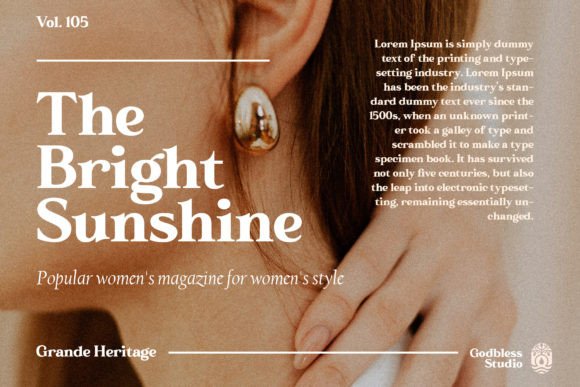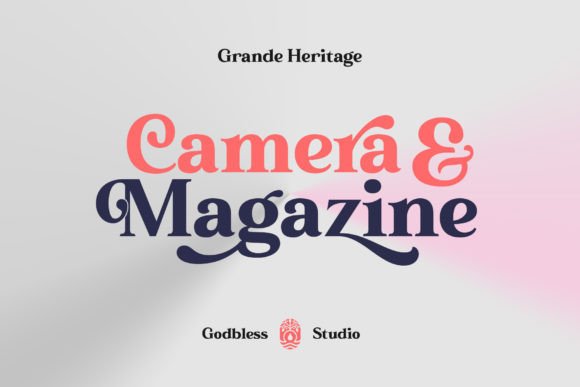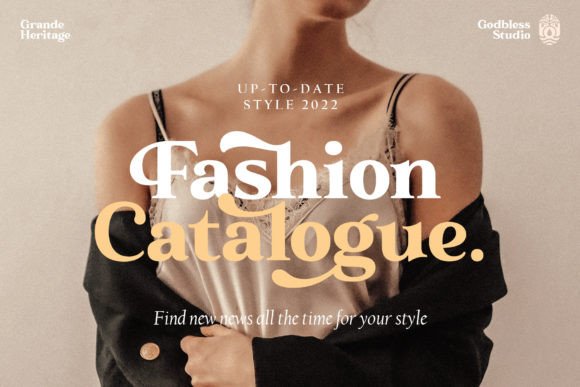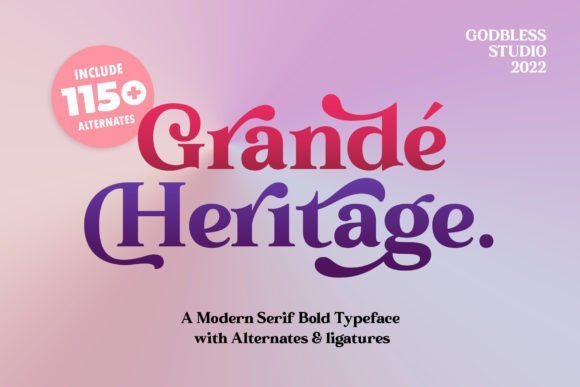
Introduction to Grande Heritage Font
Grande Heritage is a sophisticated, charming serif font with a fashionable touch.
Specially designed for luxury, elegant, feminine projects, this font is perfectly suitable for creating modern, chic designs This font is PUA encoded which means you can access all the glyphs and ligatures with ease.
Key Features of Grande Heritage Font